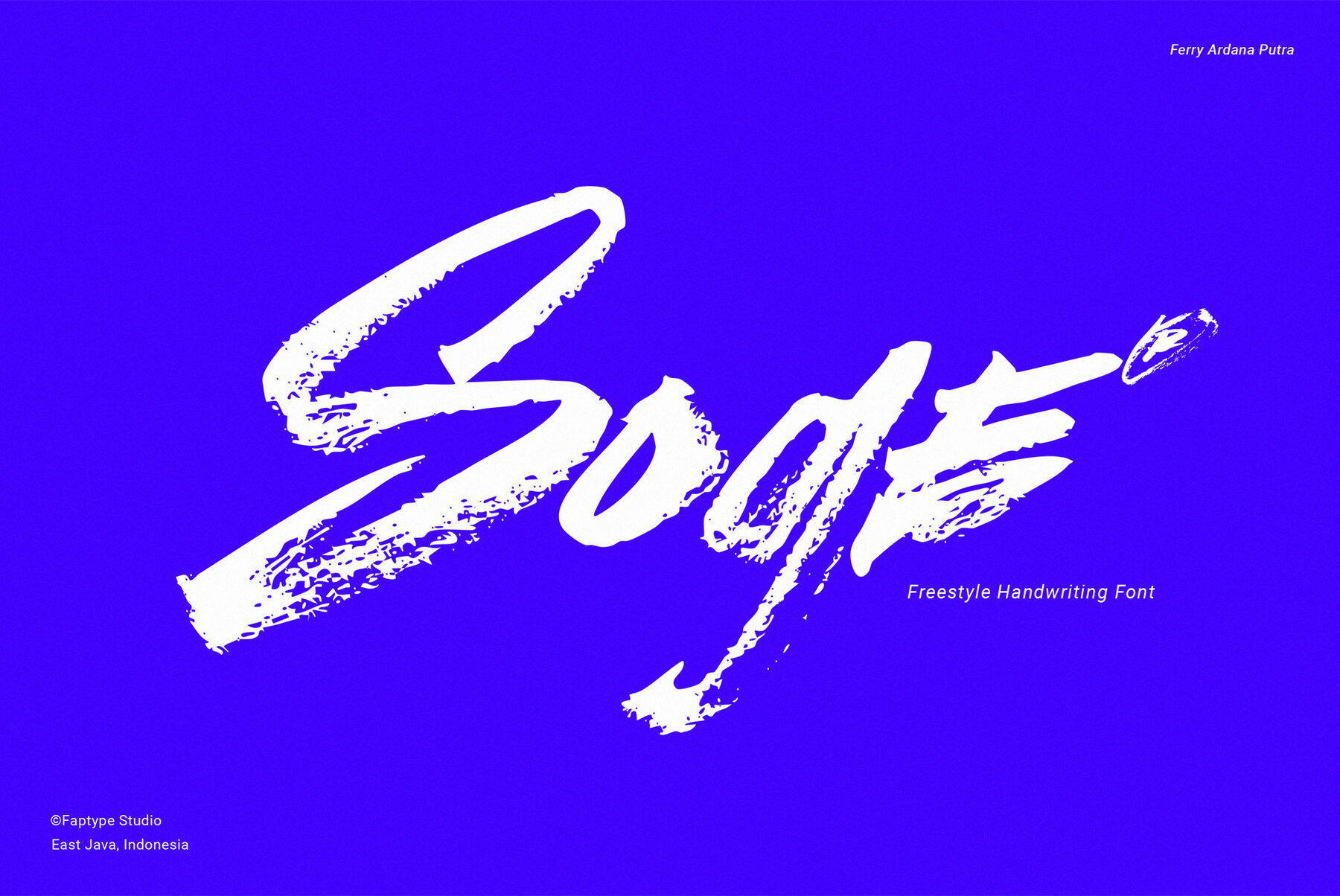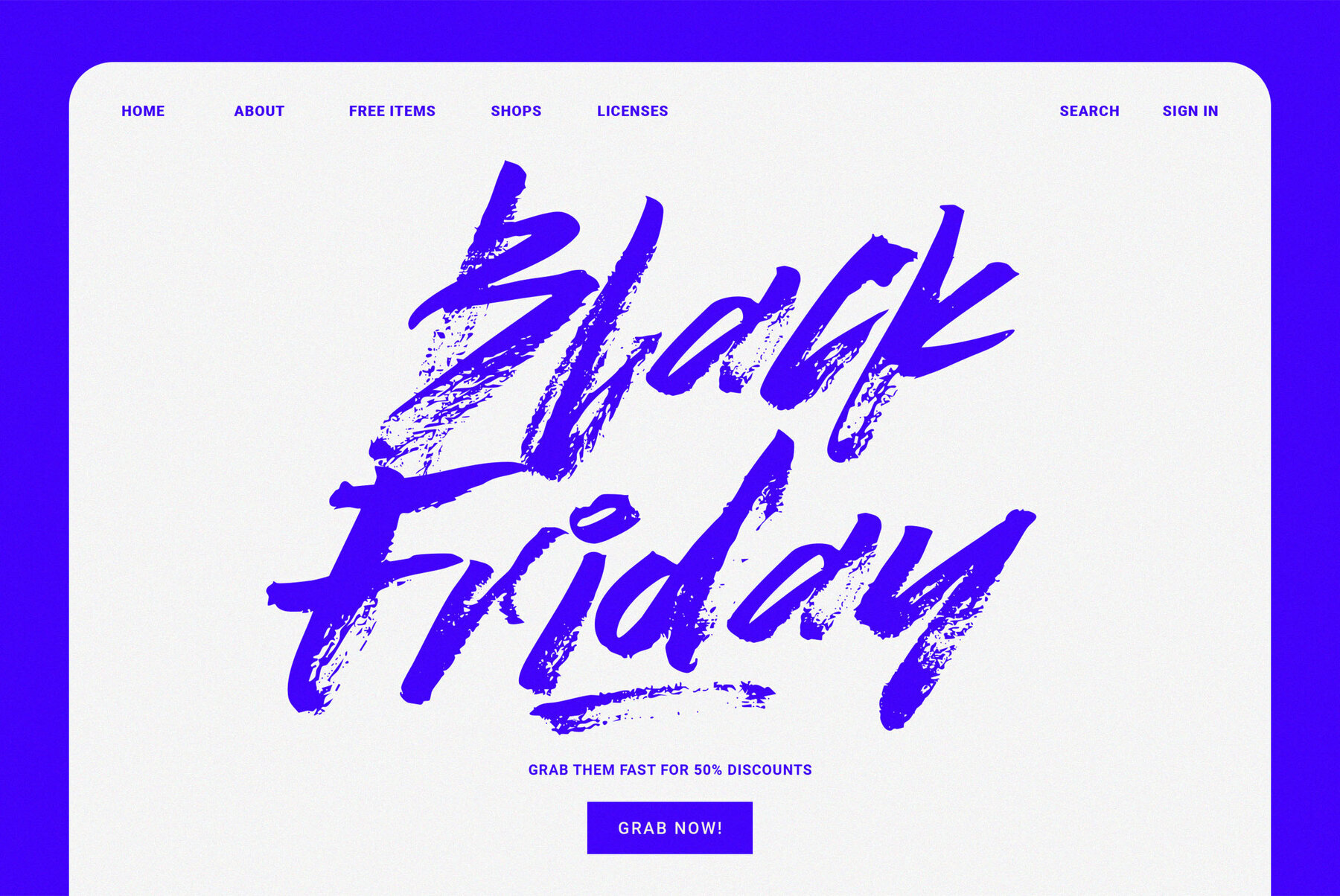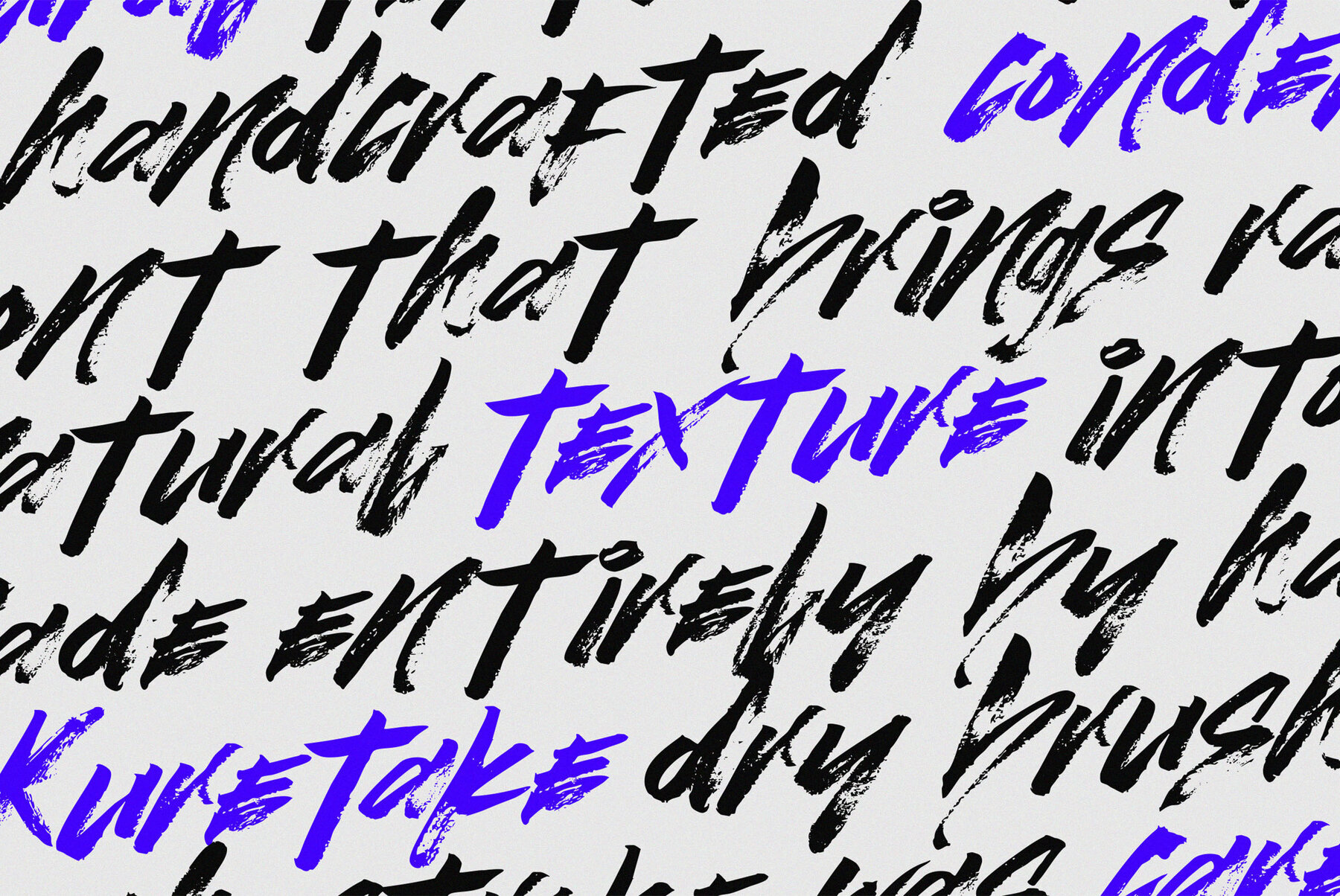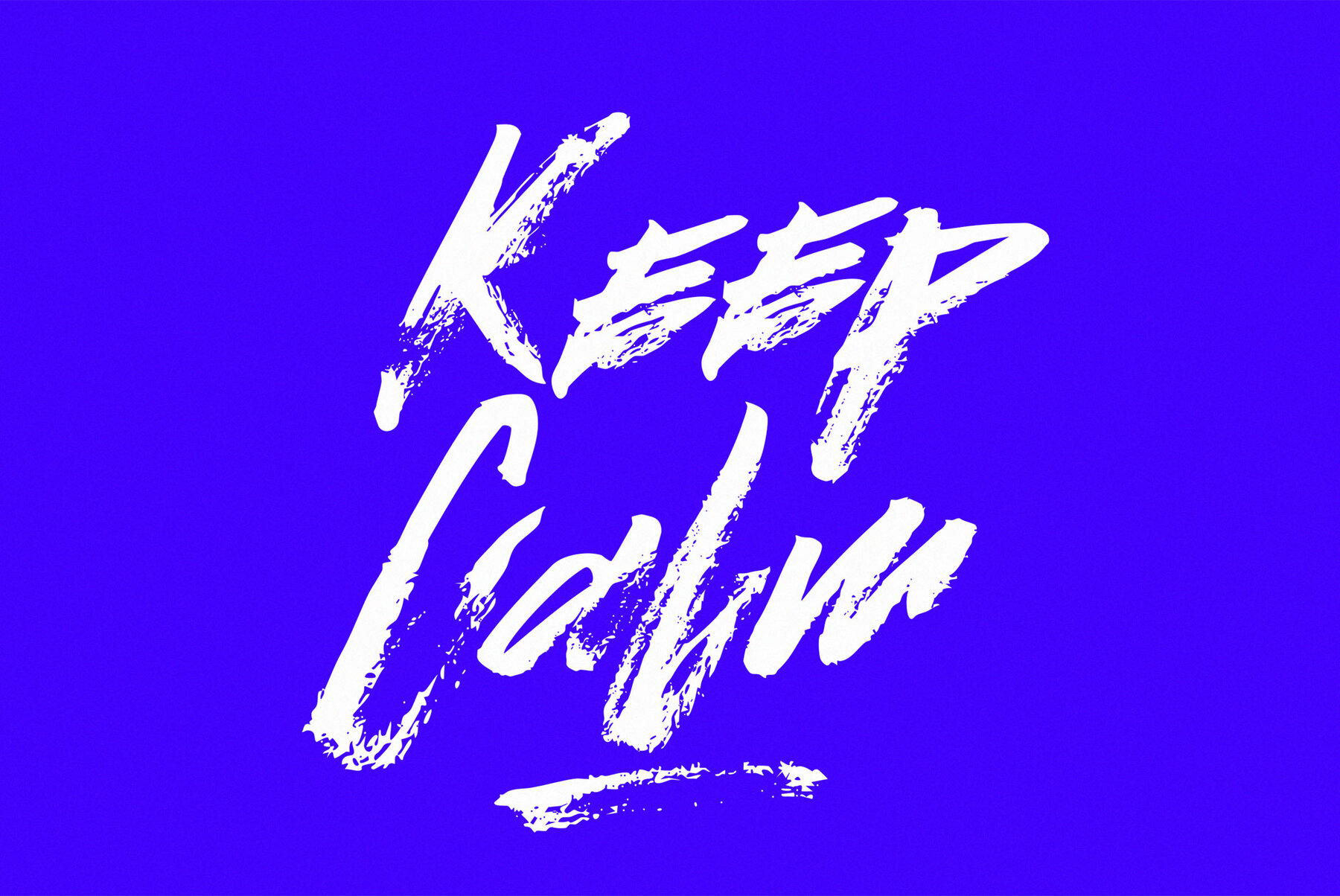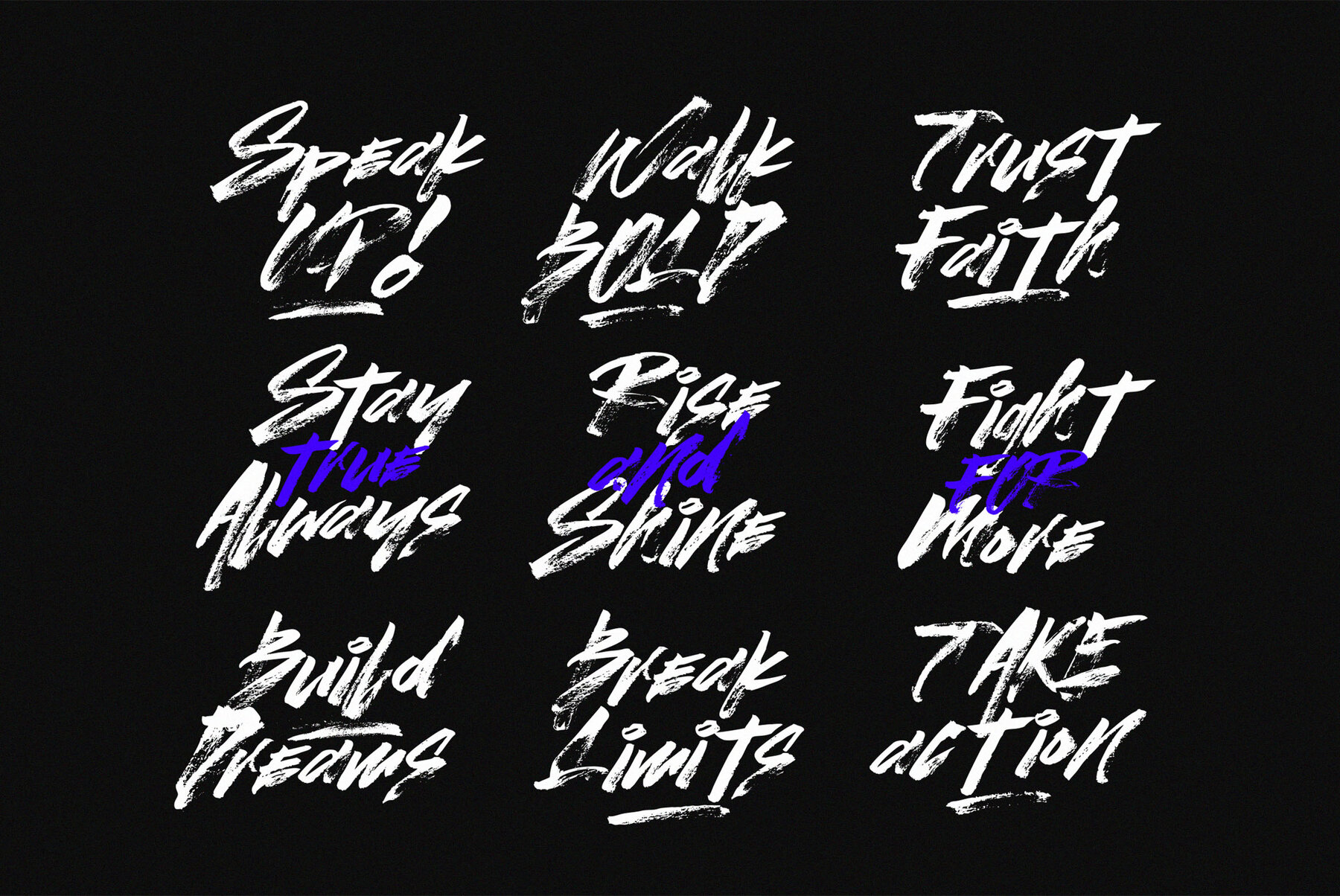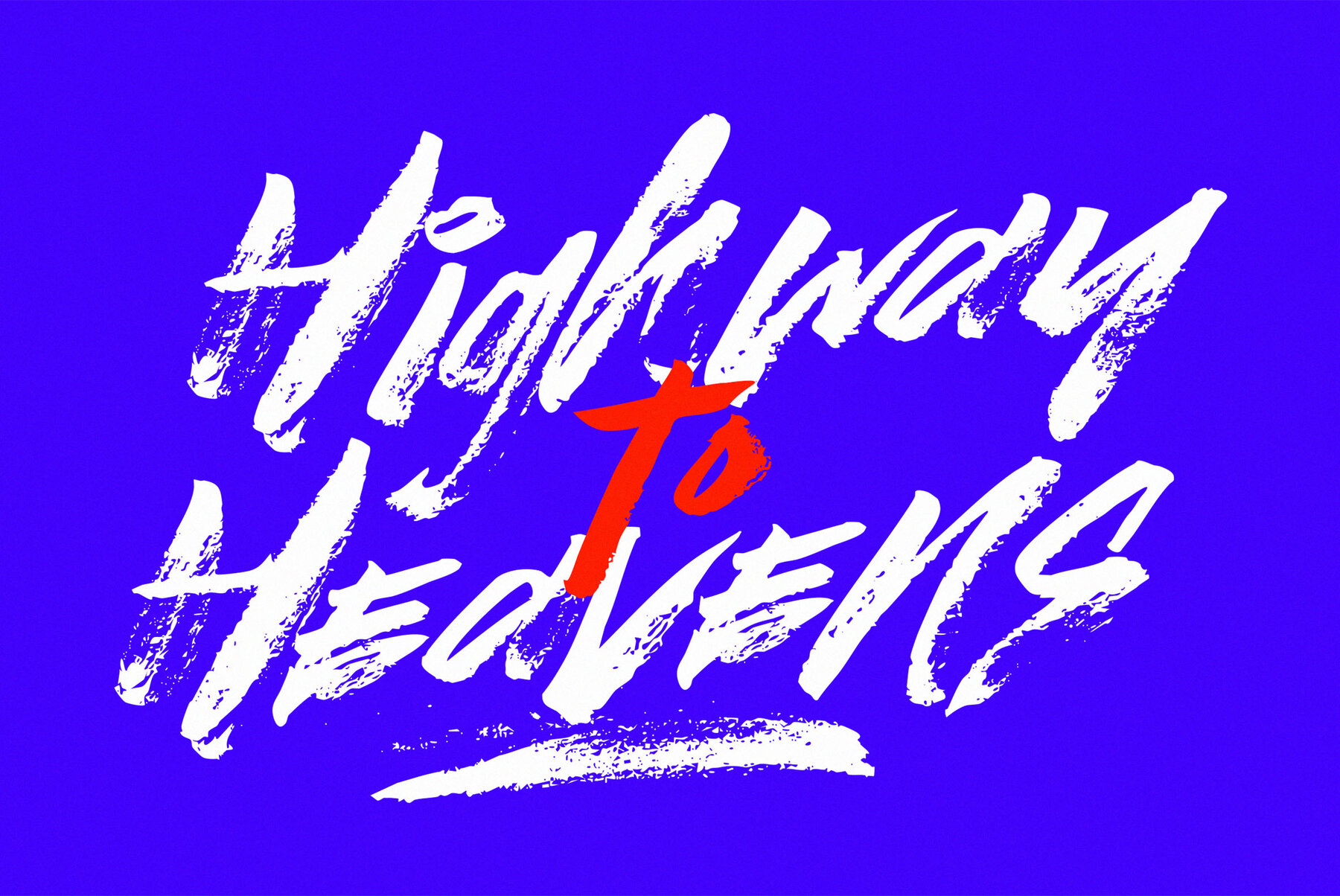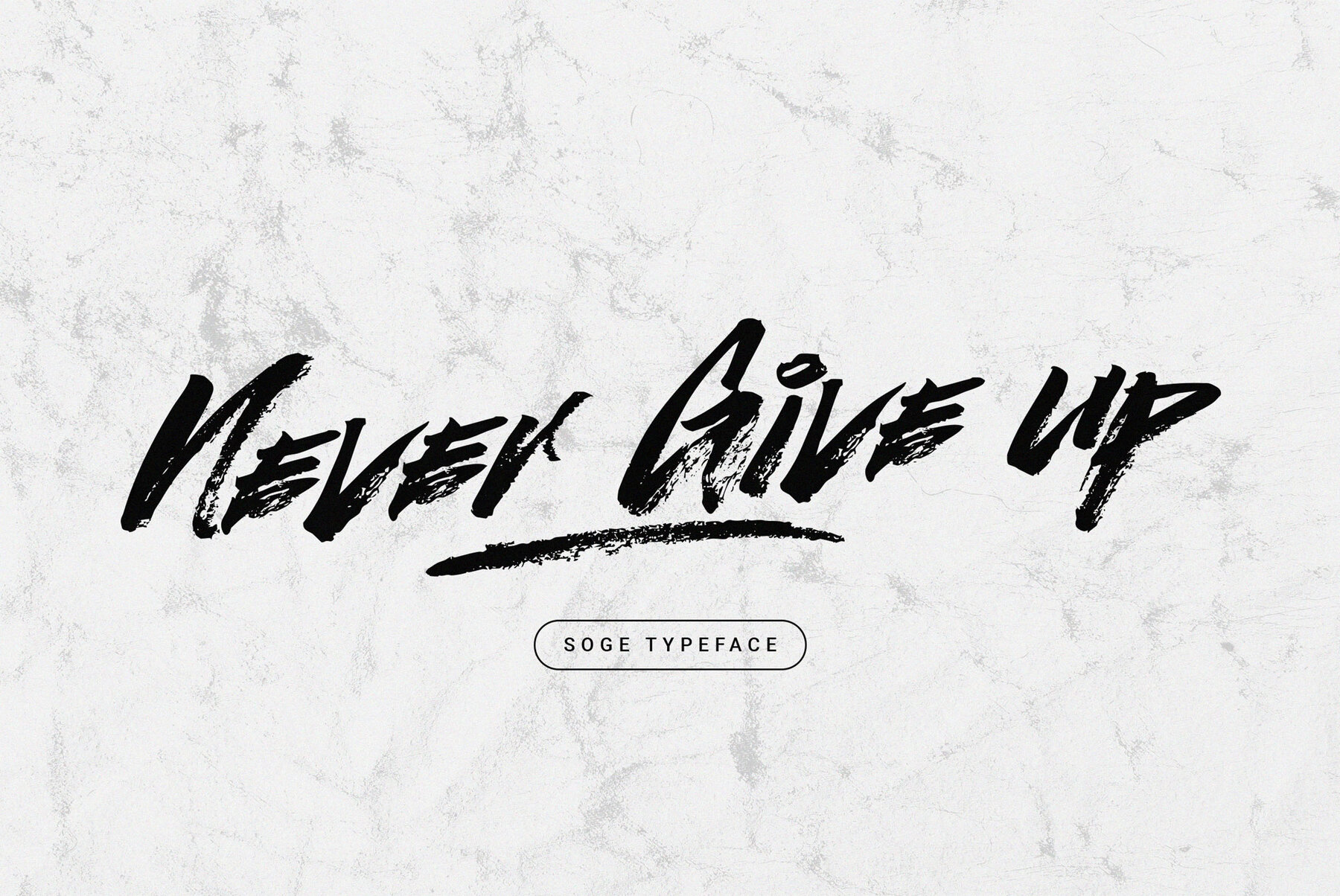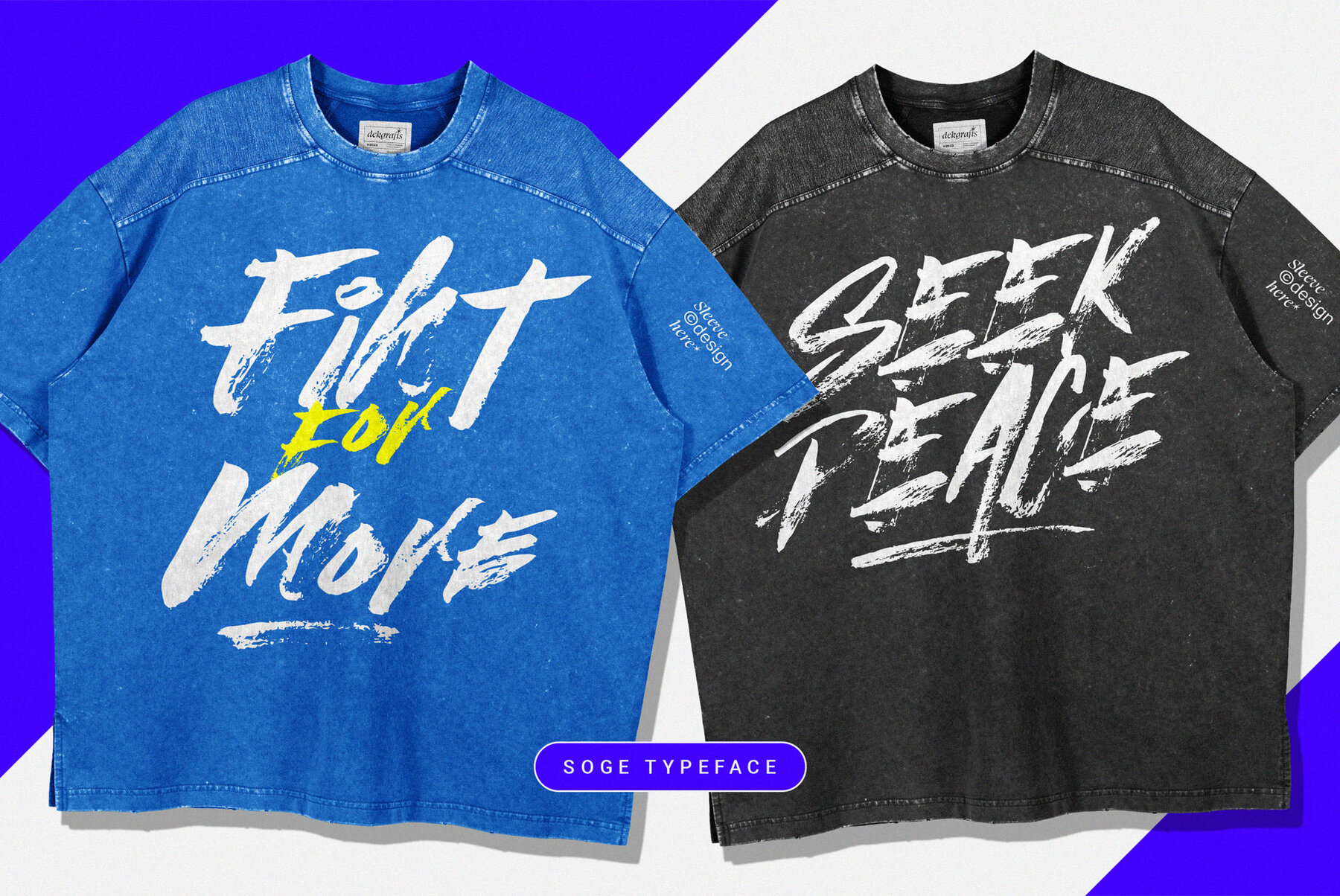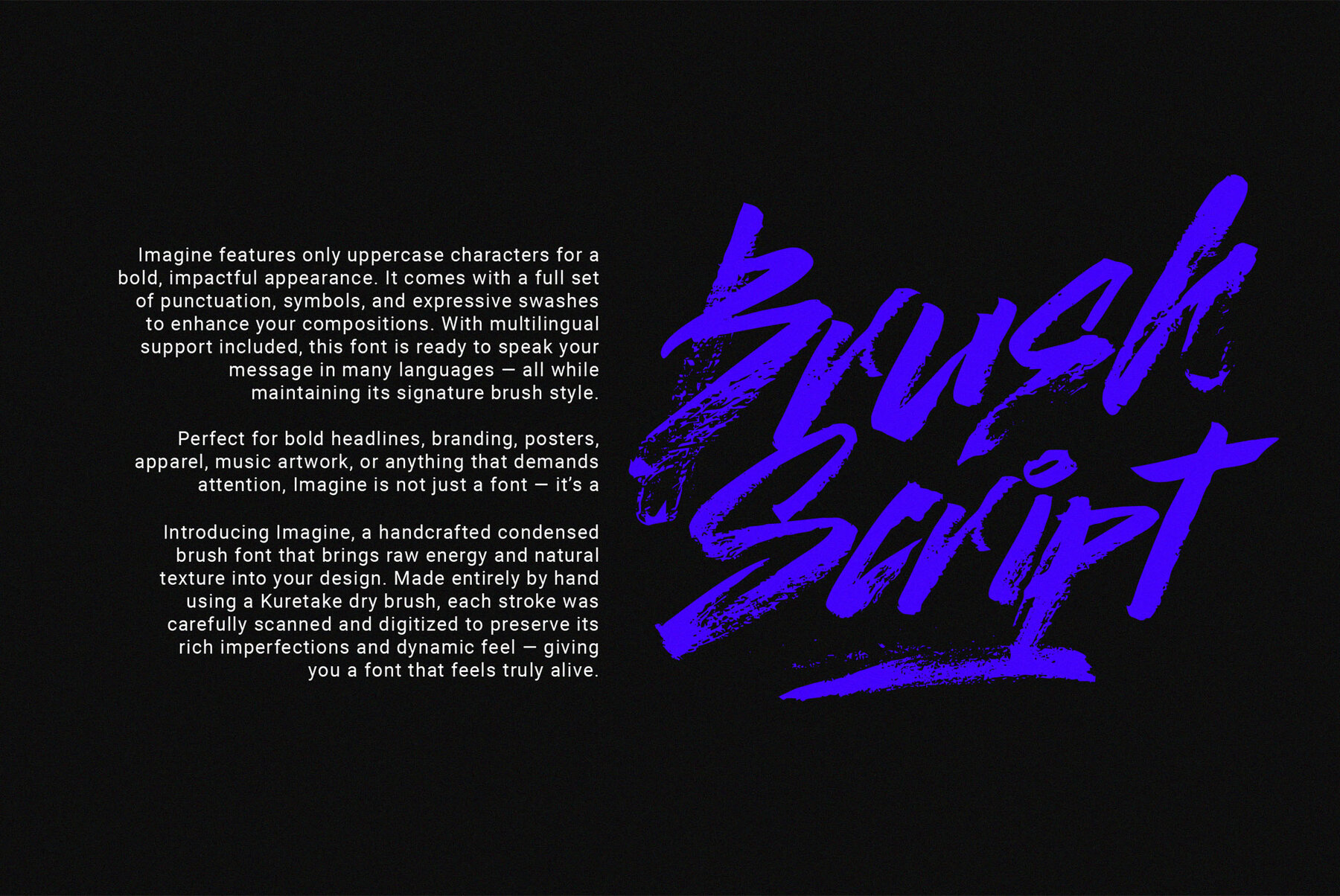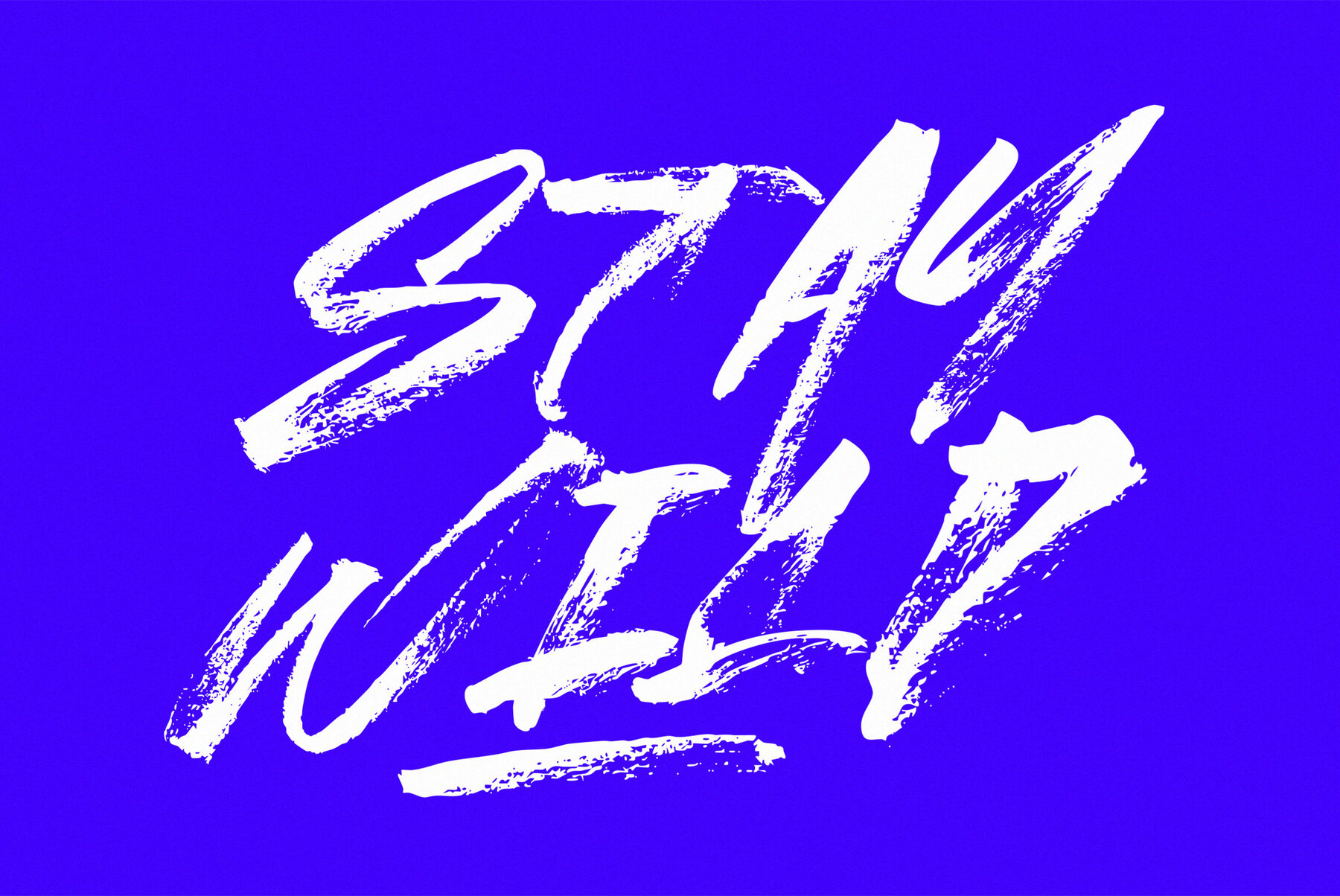
Soge Font
Soge Regular
Soge embodies the essence of freestyle handwriting, transforming the raw vibrancy of brush lettering into digital grace. Manually crafted with a Kuretake dry brush, every stroke retains the original texture, splash, and imperfection for a genuinely heartfelt visual appeal. This font is an emotive tapestry woven with rhythm and passion. With an organic flow and dynamic spirit, Soge includes uppercase and lowercase characters, expressive swashes, full punctuation, symbols, and multilingual support. Each letter echoes the beauty of handcrafted artistry, making Soge ideal for logos, packaging, apparel, posters, personal branding, or anything that requires a human touch. Let your designs resonate with the warmth of handwritten elegance. Whether crafting a brand identity or a poetic poster, Soge infuses each project with softness and individuality. Embrace the charm of imperfection as your words glide like brushstrokes across the page.Soge: Freestyle Handwriting Font with Authentic Brush Energy